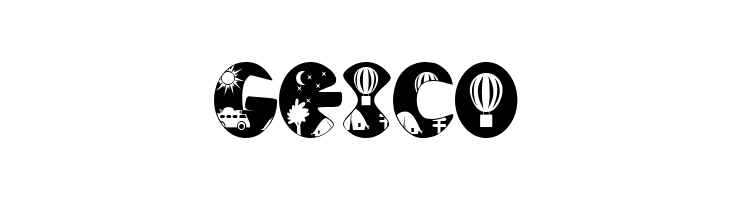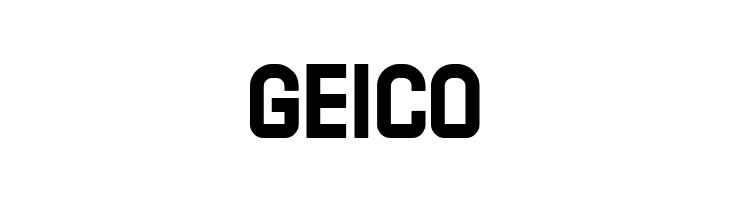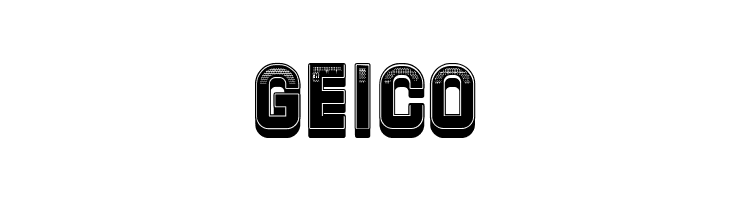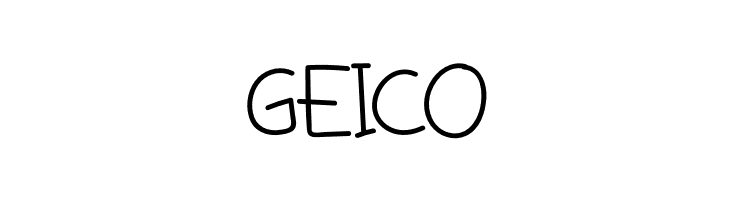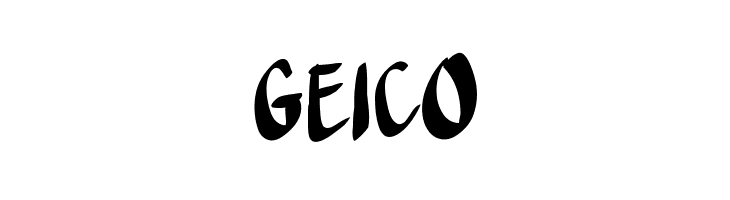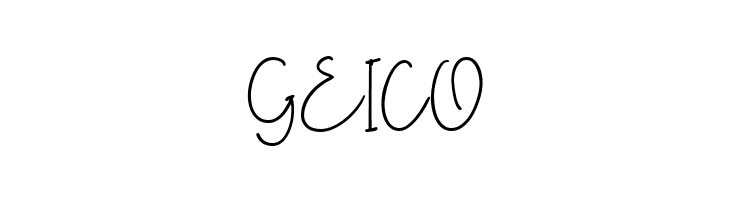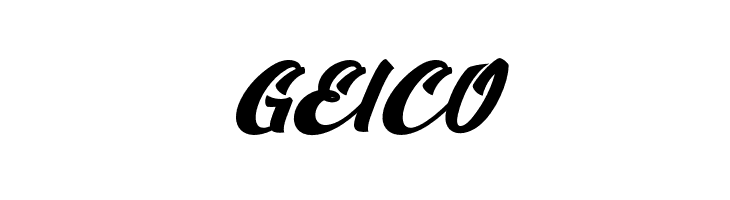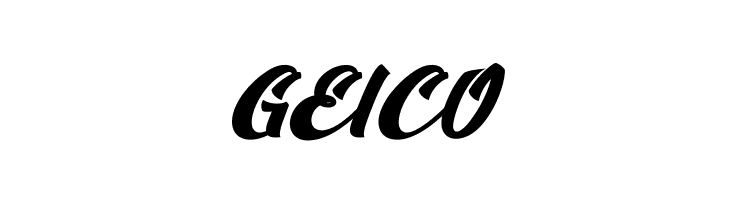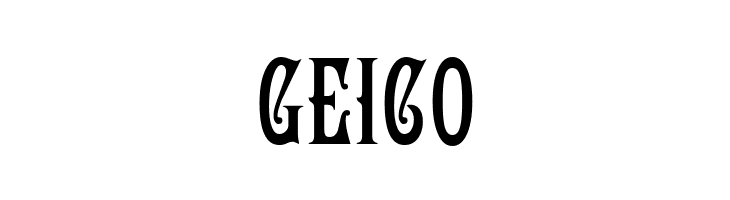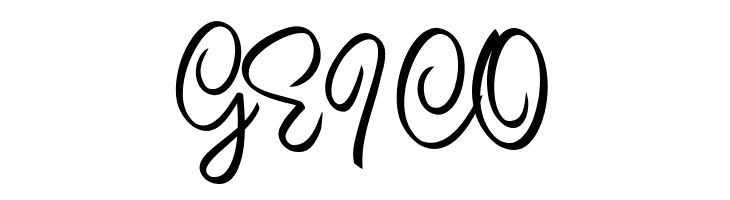
• Camp Justice Outline Italic
A bold, italicized outline font with a dynamic and modern style.
• Camp Justice Semi-Italic
A bold, semi-italic font with angular lines and a dynamic style.
• Camp Justice Super-Italic
A bold, italicized font with a dynamic and modern style.
• Camp Justice Title
A bold, geometric font with a blocky, industrial style.
• Camp Justice Title Italic
A bold, italic font with a dynamic and modern style.
An elegant script font with flowing, ornate characters and a sophisticated style.
• Campanero
• Campanile
An ornate and decorative font with intricate serifs and embellishments.
• CampanileFLF
A bold, elegant font with high contrast and a vintage-modern style.
• Campbell Regular
A playful, handwritten font with flowing, cursive-like strokes.
• Campbell Regular
A playful, handwritten font with flowing, cursive-like letterforms.
• Campcraft Basic
• Camper
A playful, handwritten font with rounded, casual characters.
• Camper Quotes
A casual, handwritten font with a playful and friendly style.
• Campesina Personal Use Regular
A decorative cursive font with elegant, flowing strokes.
• Campfire
• Campfire Blaze
A rugged, distressed font with a fiery, organic appearance.
• CampGranadaNF
A bold, geometric font with a retro yet modern aesthetic.
• Camphiont
• Camping
A decorative font featuring camping-themed illustrations within each character.
• Camping
A decorative font with camping-themed illustrations embedded in each character.
• Camping Camp
A lively and flowing script font with elegant, cursive strokes.